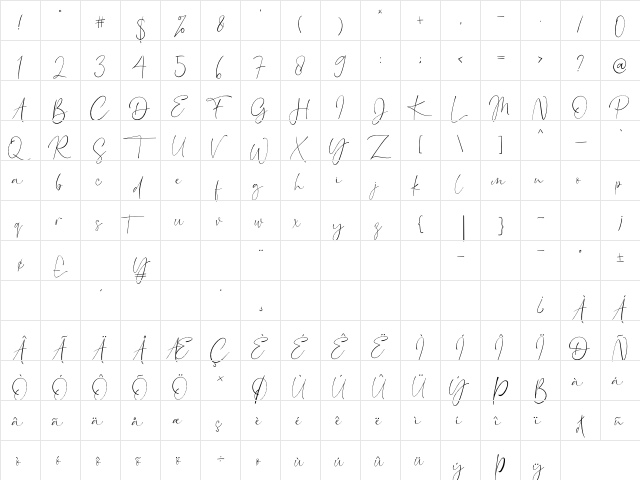
London Signature Regular
Design Context for London Signature Typeface
London Signature is a composed and adaptable typeface that performs quietly and consistently across a wide range of design contexts.